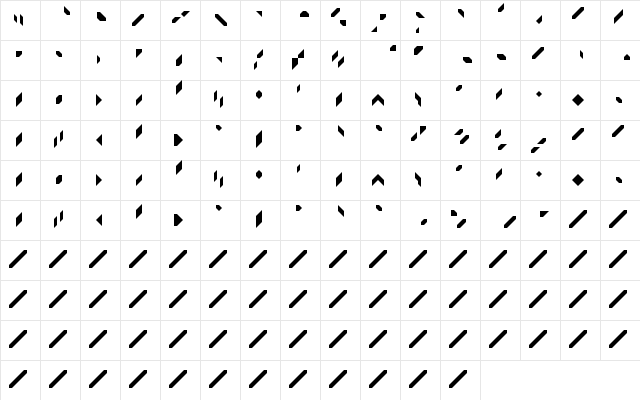
zuptype_SIM Regular
Designer: zupton
Design Context for zuptype_SIM
zuptype_SIM is a composed and adaptable typeface that performs quietly and consistently across a wide range of design contexts.